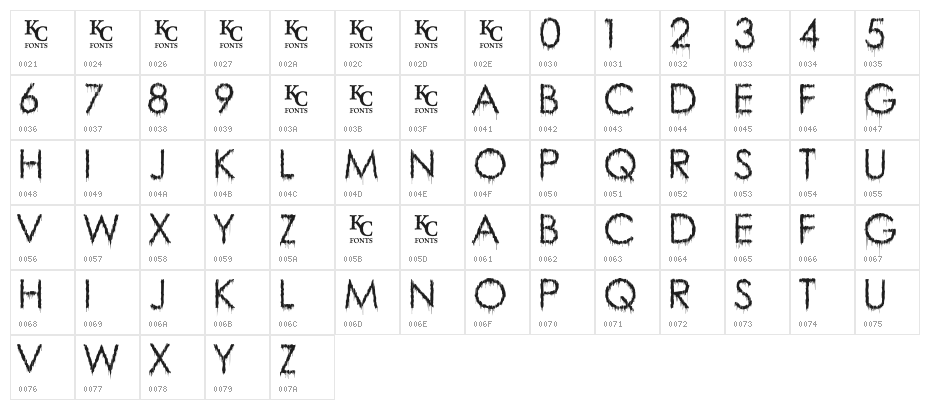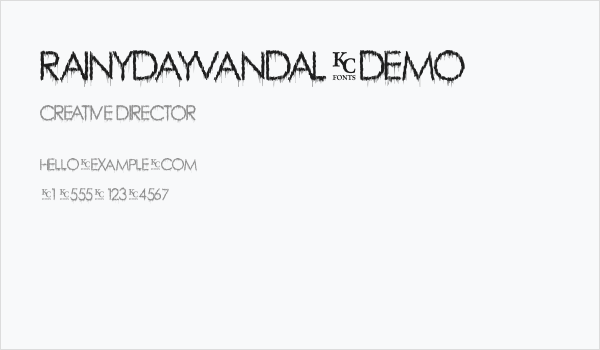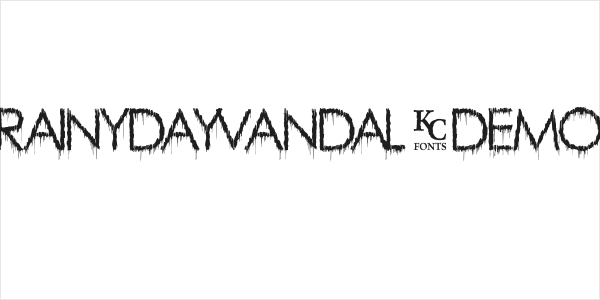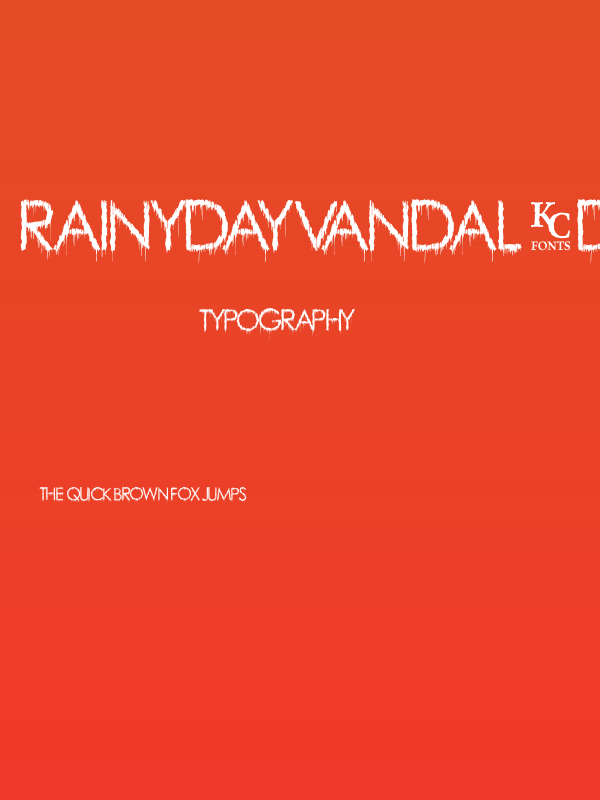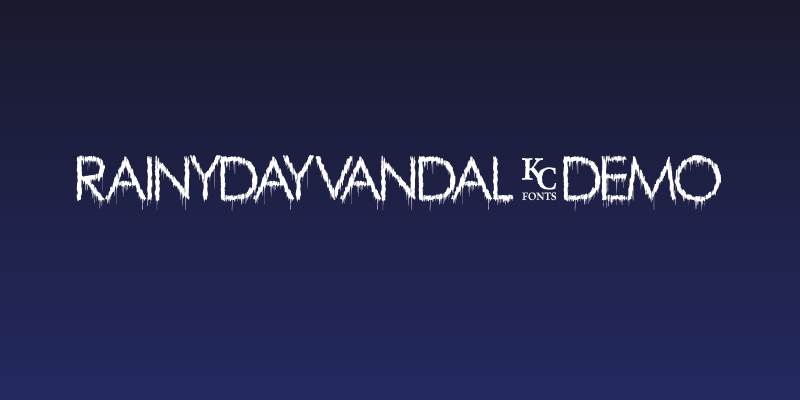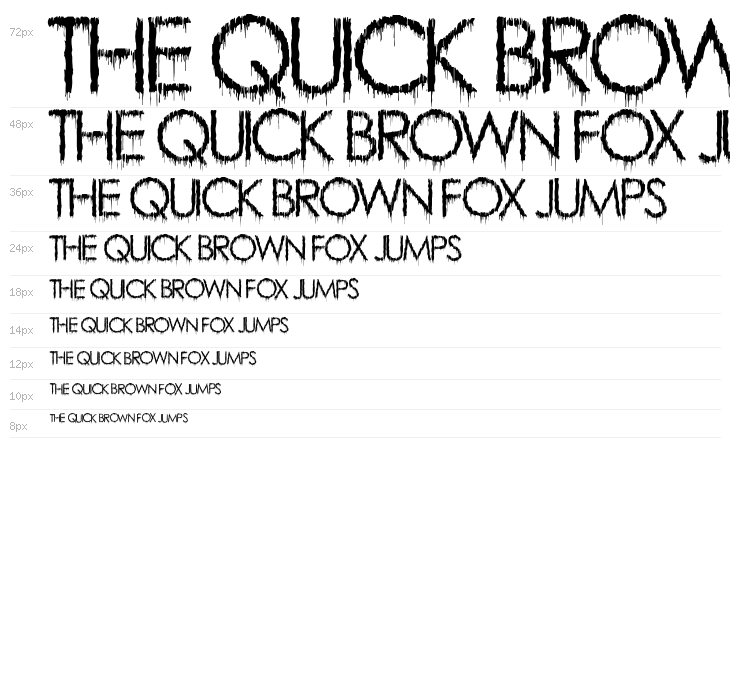
RainyDayVandal-Demo Font
RainyDayVandal-Demo Description
This font features a unique and edgy design with a dripping effect that mimics the appearance of wet paint or ink. The characters have a rough, textured look, giving them a rebellious and artistic vibe. The uppercase and lowercase letters maintain a consistent style, with each character appearing as if it is melting or dripping downwards. The numbers and special characters follow the same aesthetic, ensuring a cohesive appearance across all glyphs. This font is ideal for projects that require a bold and unconventional look, such as street art, graffiti-inspired designs, or edgy branding materials.
| Overall Style | Modern, Artistic |
| Use Case | Logos, Posters, Headlines |
| Proposed Projects | Ideal for street art, graffiti-inspired designs, edgy branding, and artistic posters. |